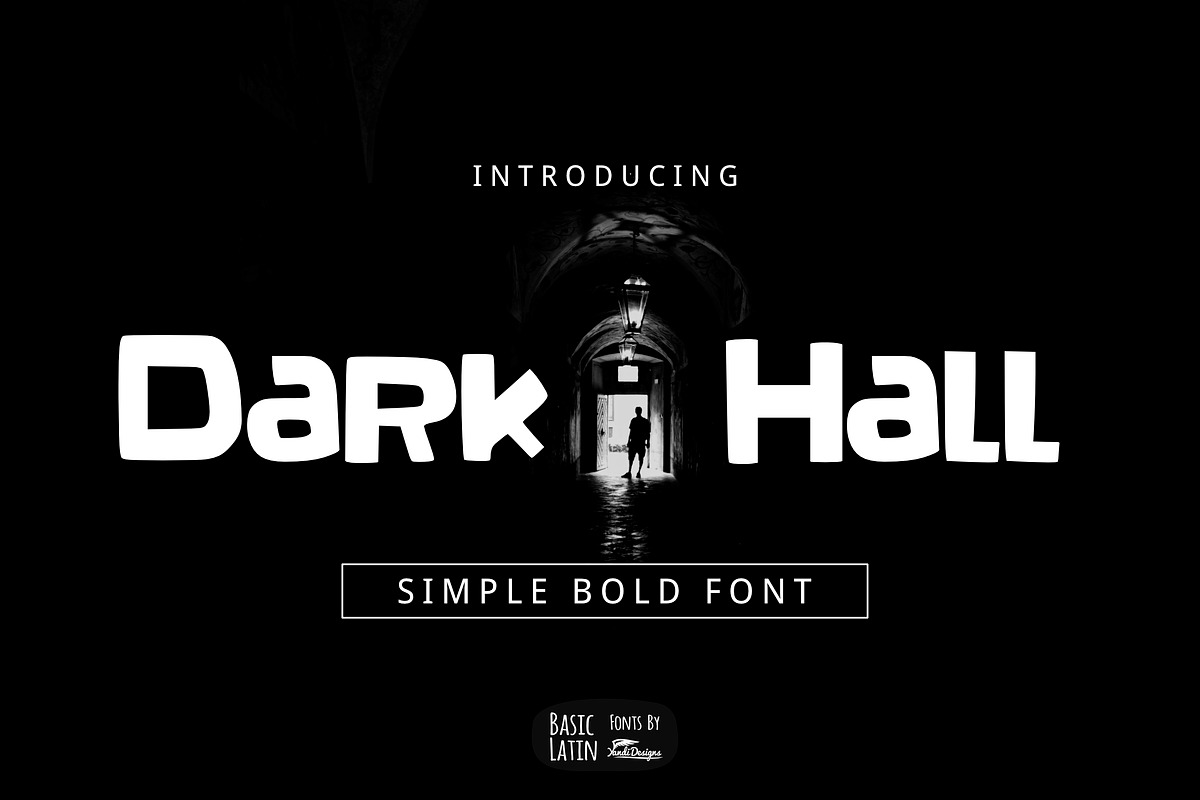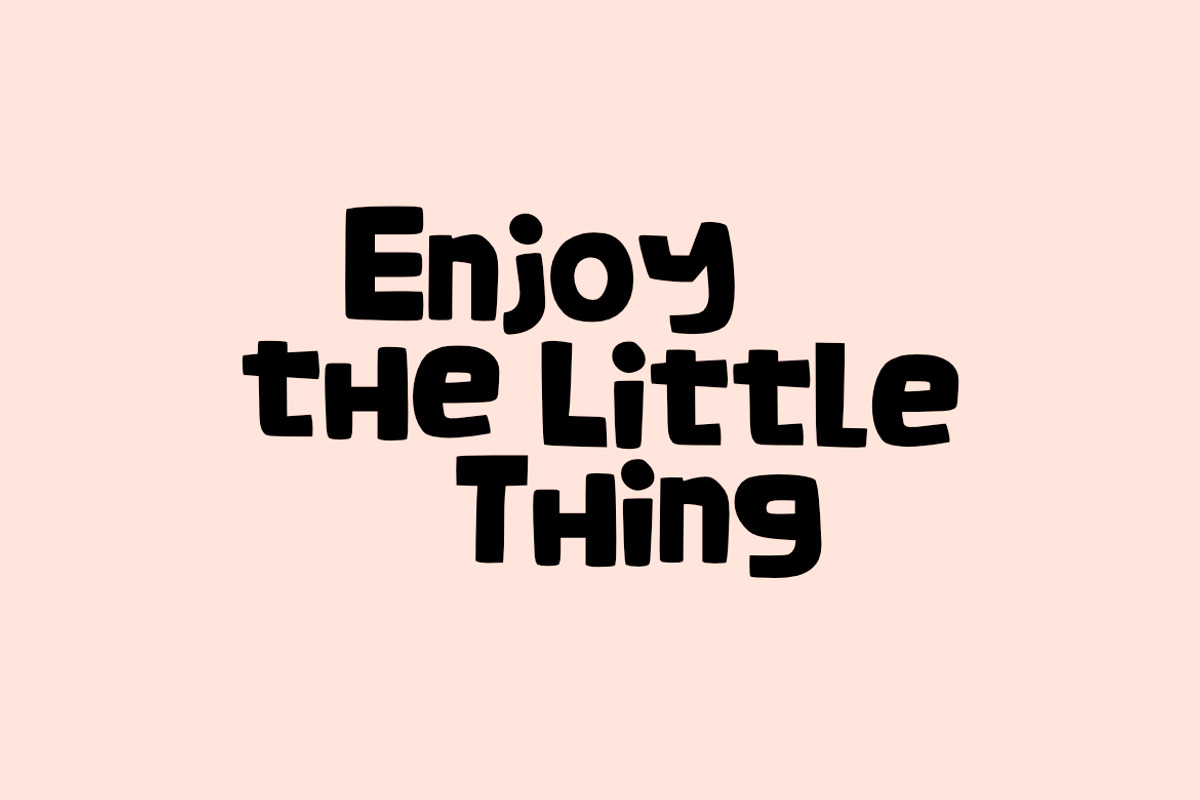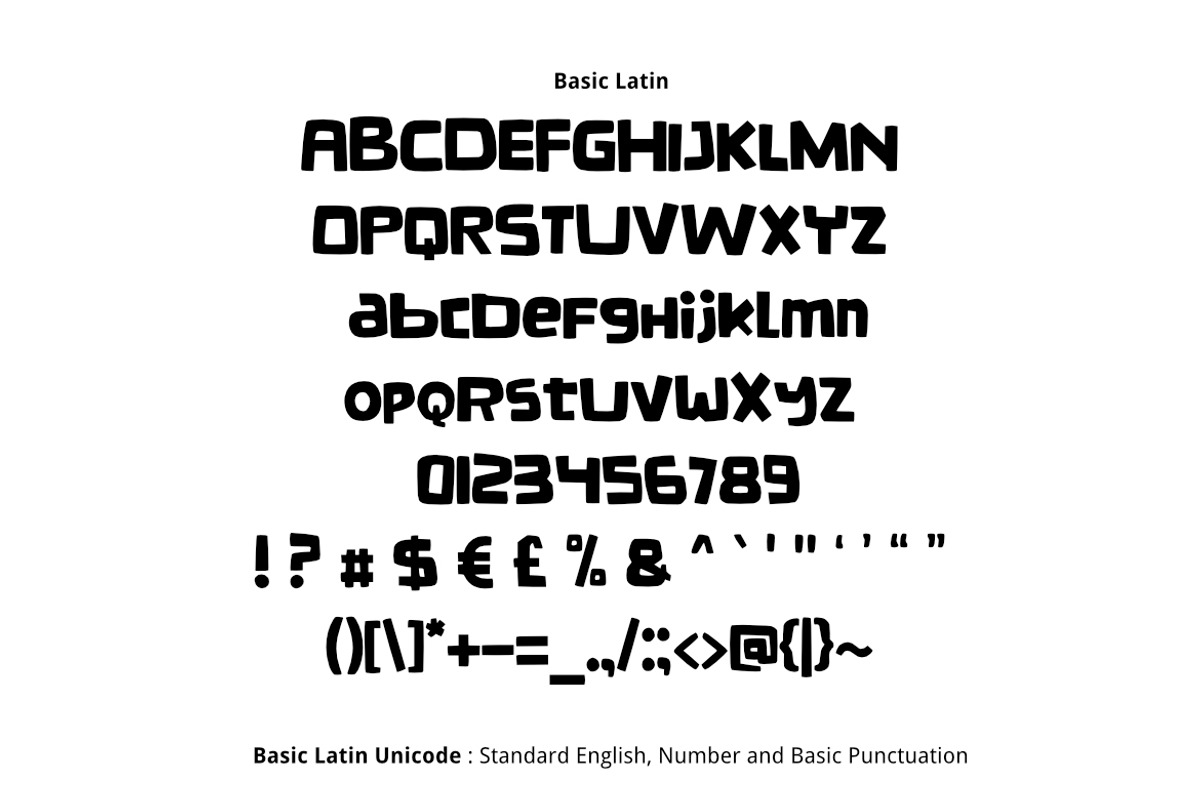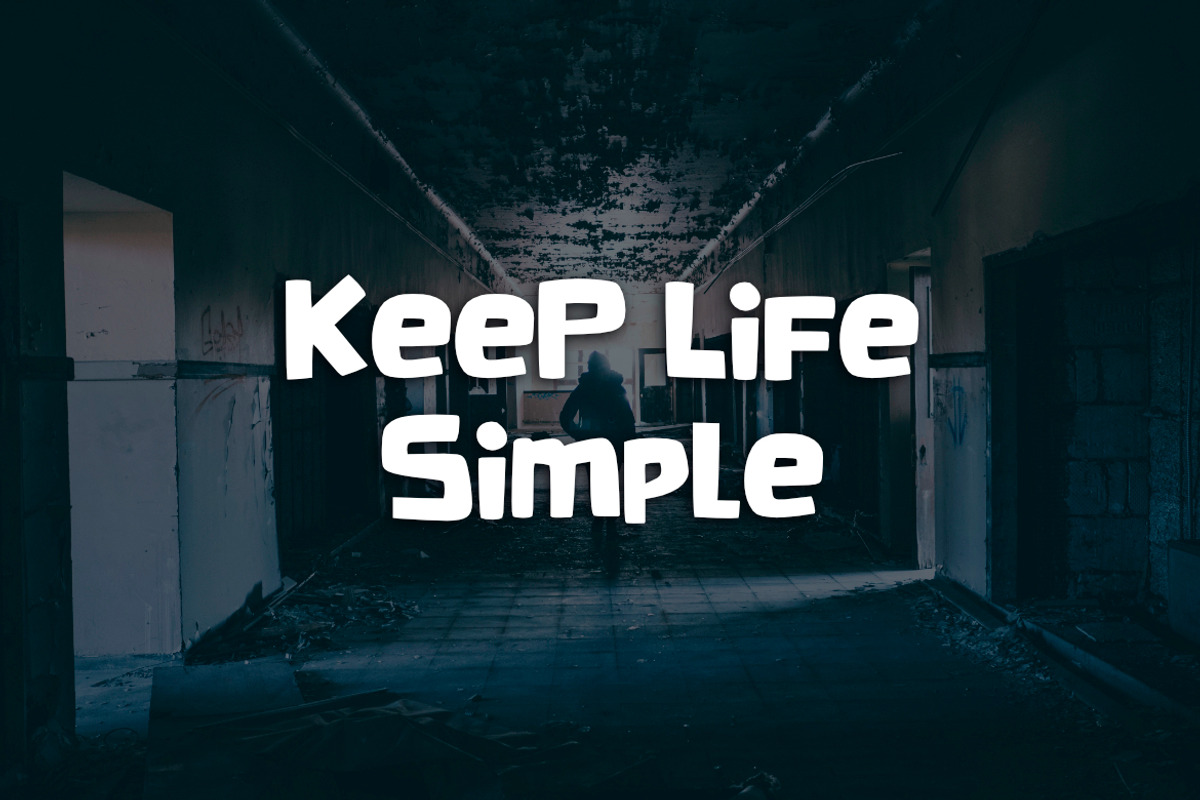
Dark Hall Font
Dark Hall font is simple cute multipurpose handmade font , suitable for many project children book, quotes, logo , heading , title etc.
Dark Hall Font by YandiDesigns fits naturally into Branding, posters, packaging, typography.